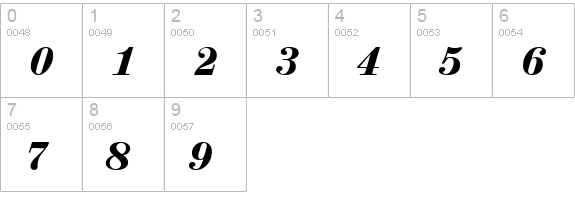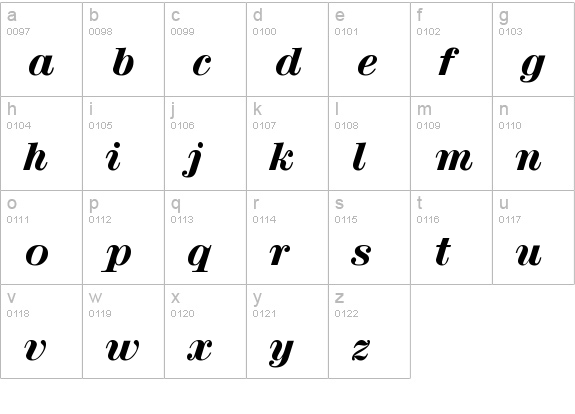
RubyScriptExtrabold Regular Font Details
RubyScriptExtrabold Regular is the standard, neutral variant in the RubyScriptExtrabold typeface family \xE2\x80\x94 well suited to general body text, paragraphs, and standard typographic work.
RubyScriptExtrabold Regular is a visually stunning and bold font that exudes confidence and modernity. Its thick strokes and sharp angles make a bold statement, perfect for grabbing attention and making a strong impact in any design project. This font is ideal for headlines, logos, posters, and other display purposes where you want to stand out. And the best part? RubyScriptExtrabold Regular is available for free download at FontsMarket.com! Take advantage of this amazing opportunity to enhance your design projects with this powerful and eye-catching font. Download it now and add a touch of boldness to your creations.